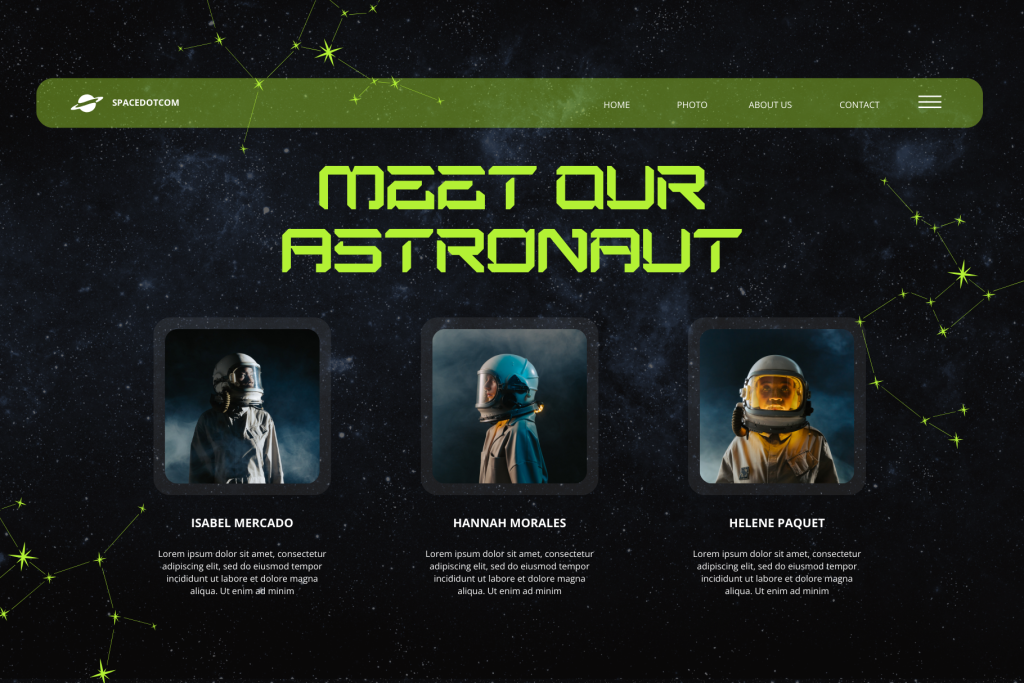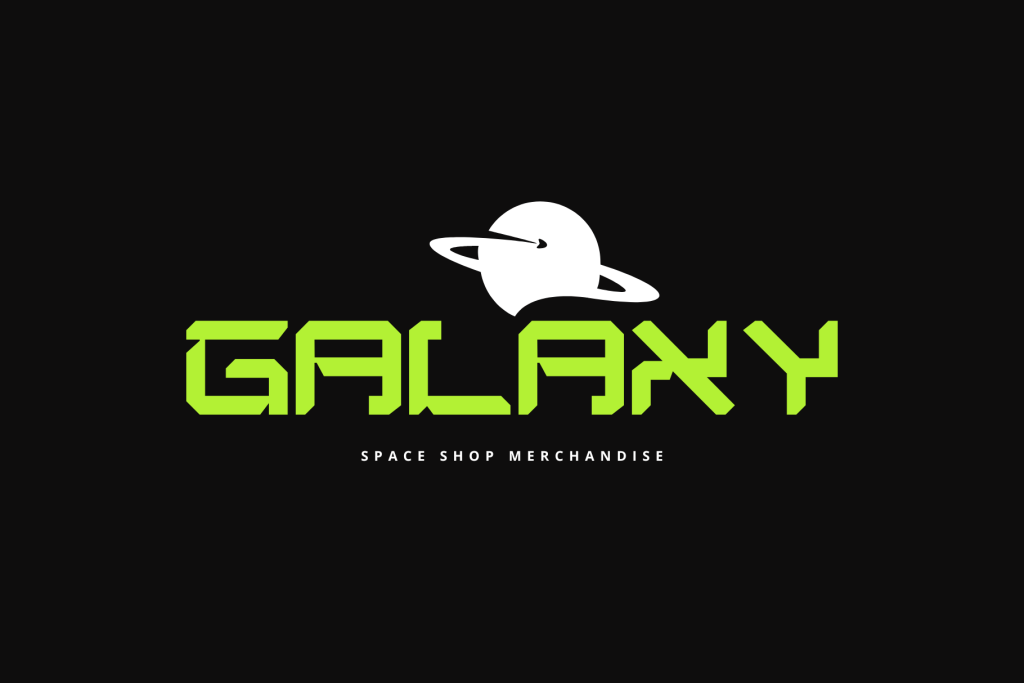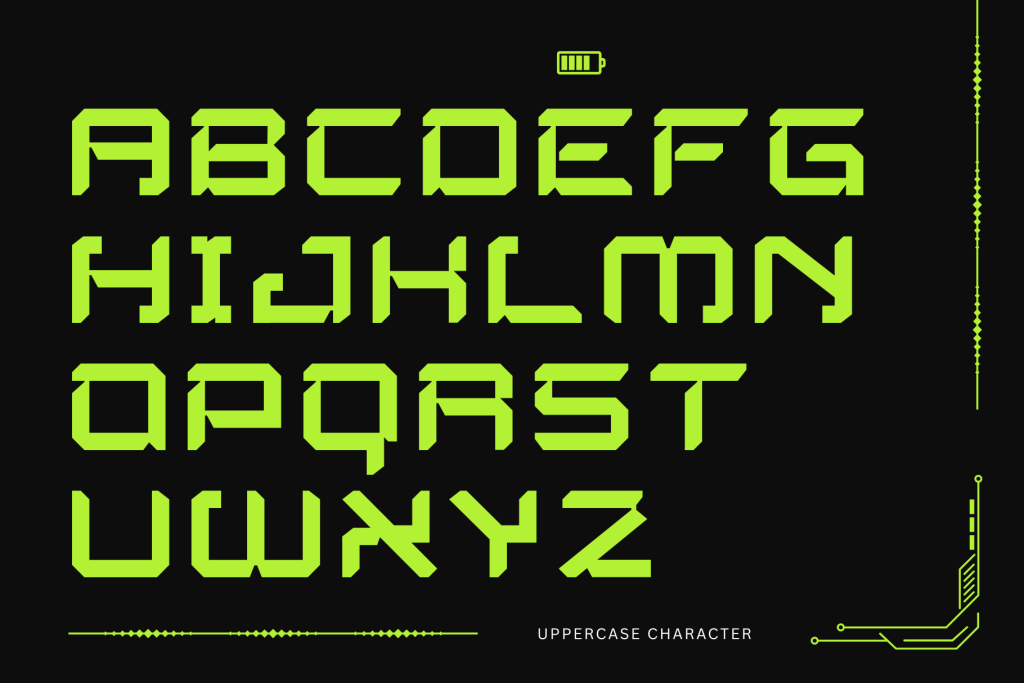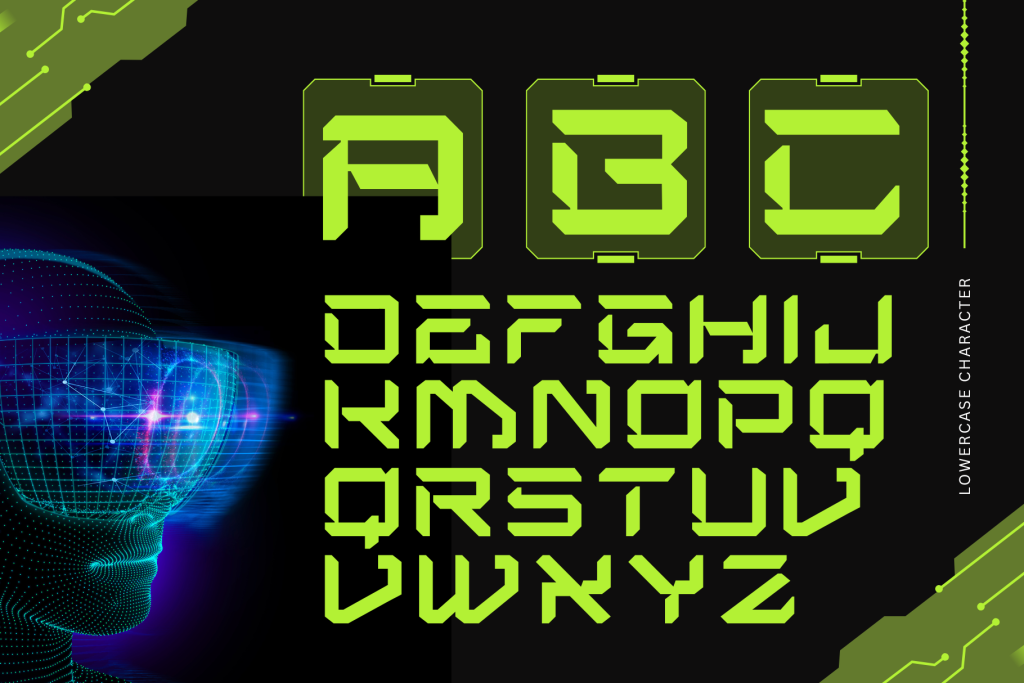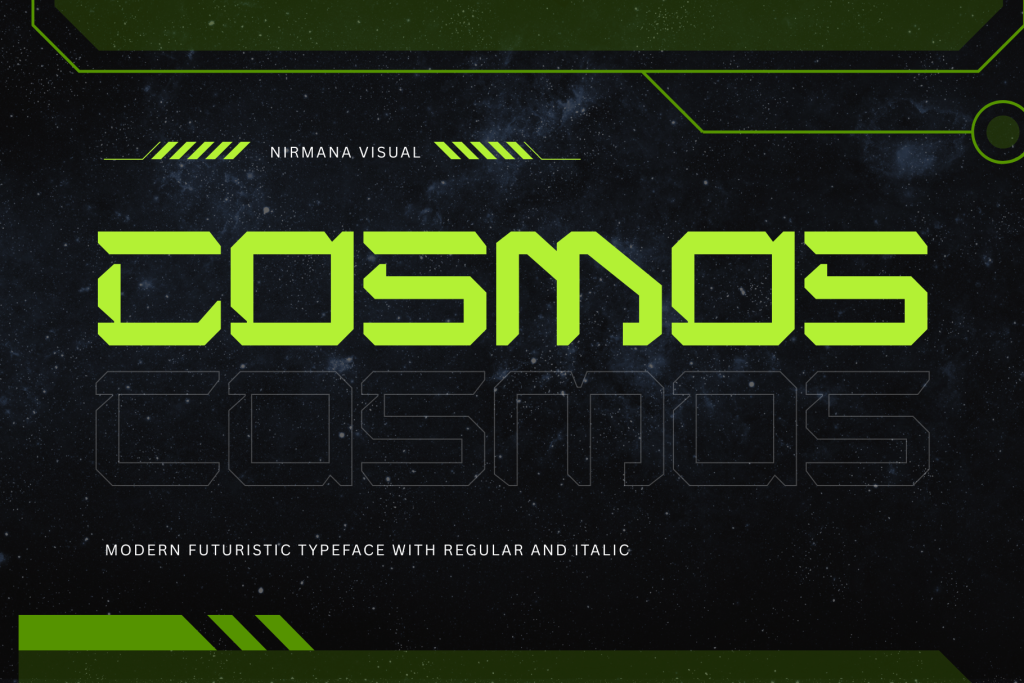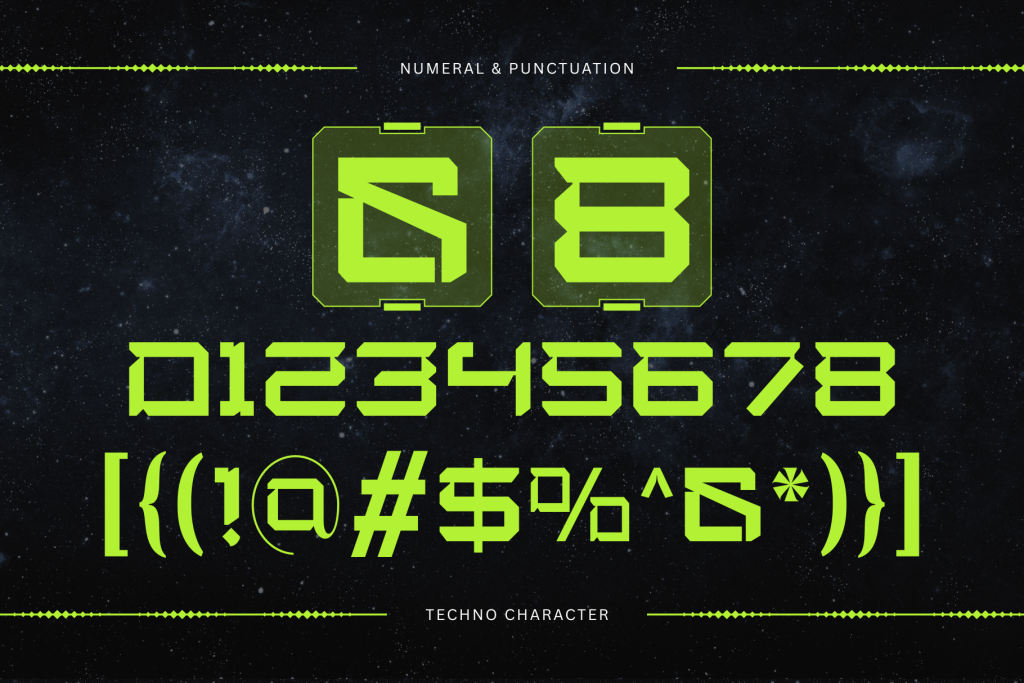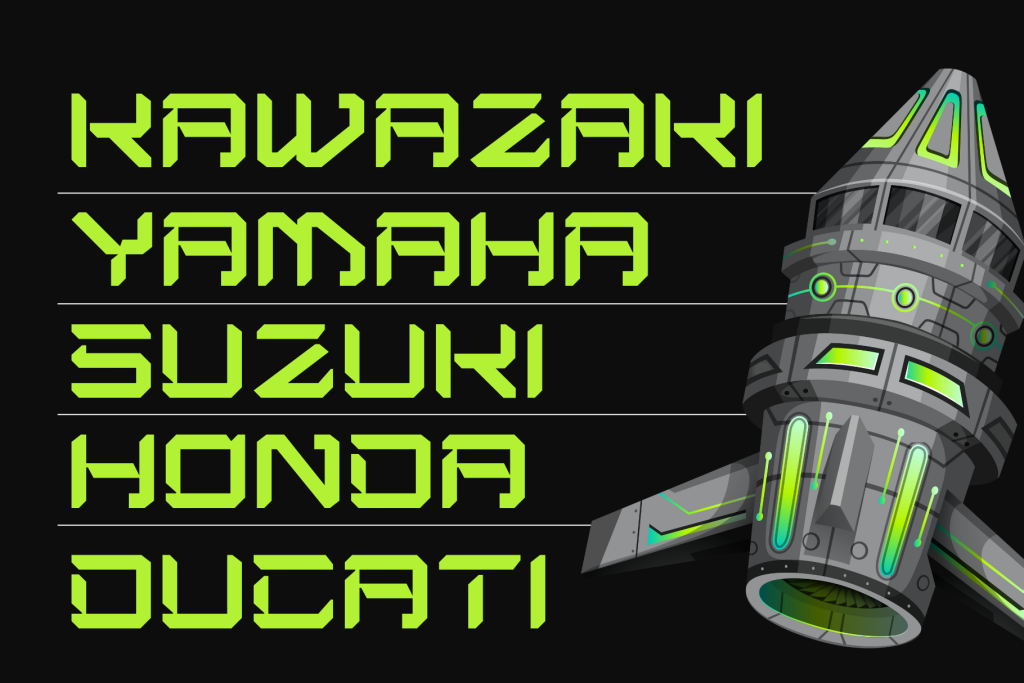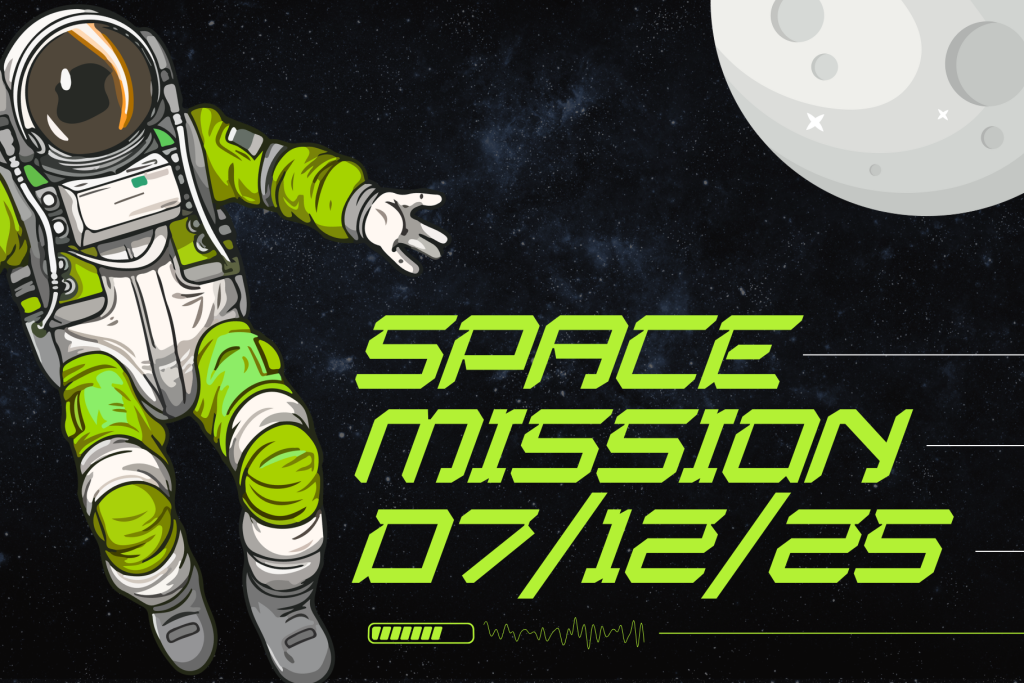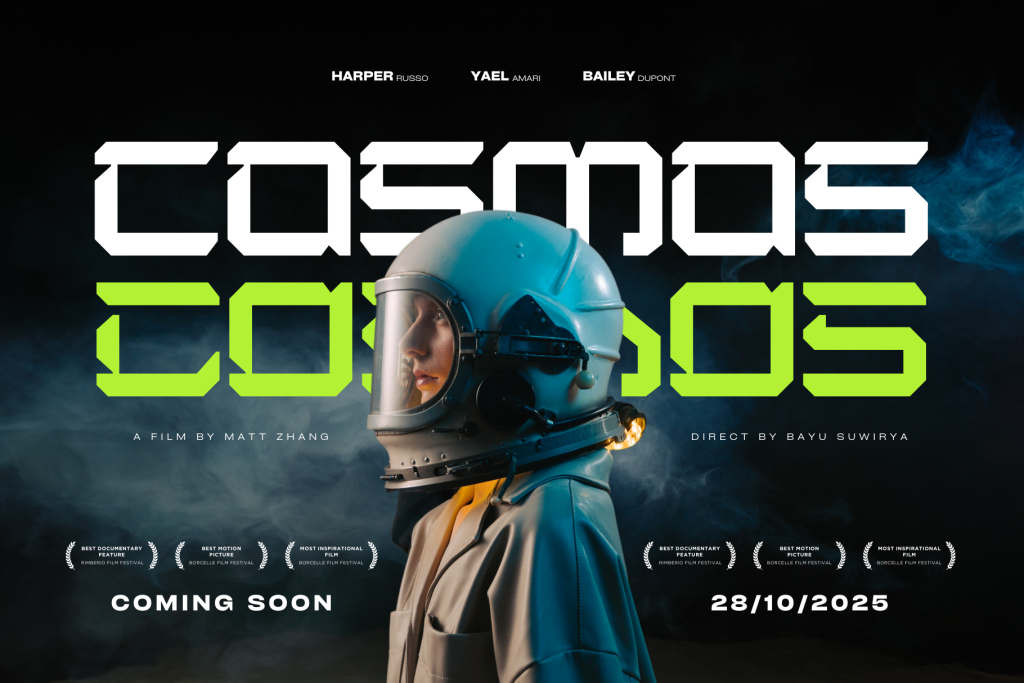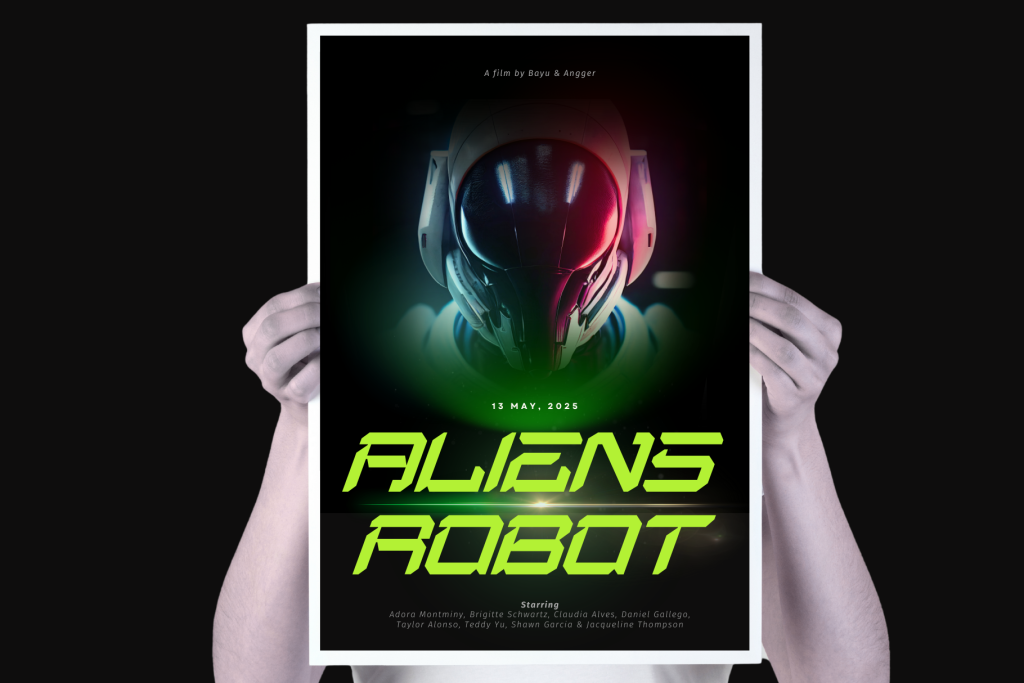
Aliens Robot is a cutting-edge techno typeface inspired by futuristic worlds, robotics, and outer space. With sleek lines and a bold, modern structure, it's perfect for sci-fi movie posters, tech-themed logos, game titles, and high-impact visuals. Its unique character design evokes the essence of space-age technology, making it an ideal choice for digital creators seeking a powerful, modern aesthetic.